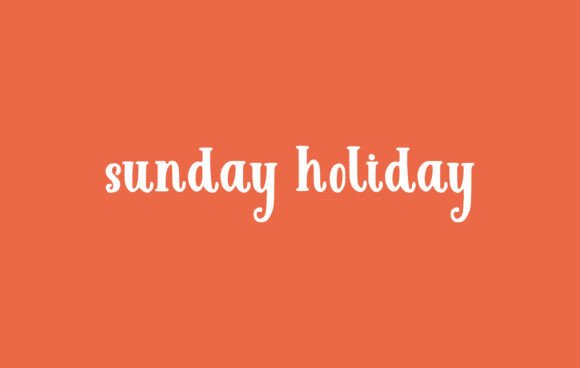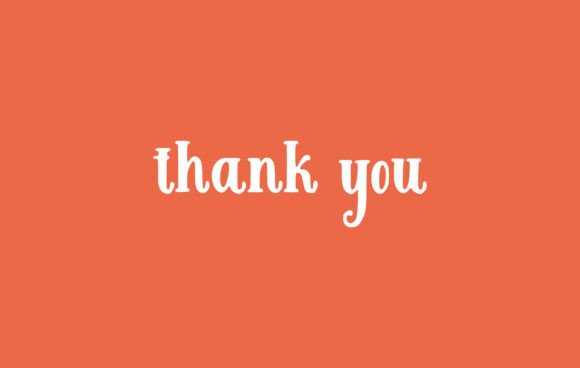
The Perfect Blend of Romance and Creativity
There’s something magical about capturing the essence of a sunset on paper – the vibrant colors, the gentle warmth, and the sense of tranquility that comes with it. As creatives, we often find ourselves drawn to moments like these, searching for the perfect way to convey our emotions and ideas. And what better way to do so than with a font that embodies the very spirit of a Havana sunset?
The Havana Sunset Font is an authentic handwritten font that brings a touch of romance and whimsy to your designs. With its legible and elegant script, this font is perfect for a wide range of applications, from magazine headlines to wedding invitations and social media posts. For designers, the Havana Sunset Font is a valuable addition to their toolkit, offering a unique way to add personality and flair to their work.
Havana Sunset Font Key Features
- Font Family: A unique, hand-drawn font designed to evoke the vibrant spirit of Havana, Cuba.
- Character Count: Includes a wide range of characters, including Latin, Cyrillic, and Greek alphabets, as well as punctuation and special characters.
- Unique Characteristics: Features a distinctive, hand-painted style with subtle texture and imperfections, giving it a warm, organic feel.
Havana Sunset Font Review
I recently had the chance to work with the Havana Sunset Font, and I’m excited to share my honest thoughts on this beautiful font.
- The Havana Sunset Font is a stunning representation of a tropical sunset. The gradient effects and warm colors evoke a sense of relaxation and tranquility.
- The font is highly customizable, allowing users to adjust the color palette, texture, and more to suit their design needs.
- The font is highly legible, even at smaller sizes, making it perfect for use in a variety of design contexts.
- The font may not be suitable for use in formal or professional designs, as it has a more playful and casual feel.
- The font may not be as versatile as some other fonts, as its tropical sunset theme can be limiting in certain design contexts.
Overall, I was really impressed with the Havana Sunset Font. While it may have some limitations, its unique and customizable design make it a great choice for designers looking to add a touch of tropical flair to their projects. If you’re looking for a font that’s perfect for beach-themed designs, travel websites, or social media graphics, this font is definitely worth considering.
Tips for Getting the Most Out of Havana Sunset Font
Use the Havana Sunset Font to create a unique and eye-catching look for your projects. Experiment with different font sizes, colors, and styles to find the perfect combination. Pair it with bold or italic fonts for added emphasis.
The Havana Sunset Font is perfect for creating a tropical or vintage vibe in your projects. Use it for:
– Travel or adventure branding
– Food or drink packaging
– Wedding or event invitations
– Travel or lifestyle blog design
Alternatives to “Havana Sunset Font” for Designers
The Havana Sunset Font is a unique and stylish font that adds a touch of elegance to any design. However, there are other alternatives that can provide a similar look and feel. Here are a few options to consider: